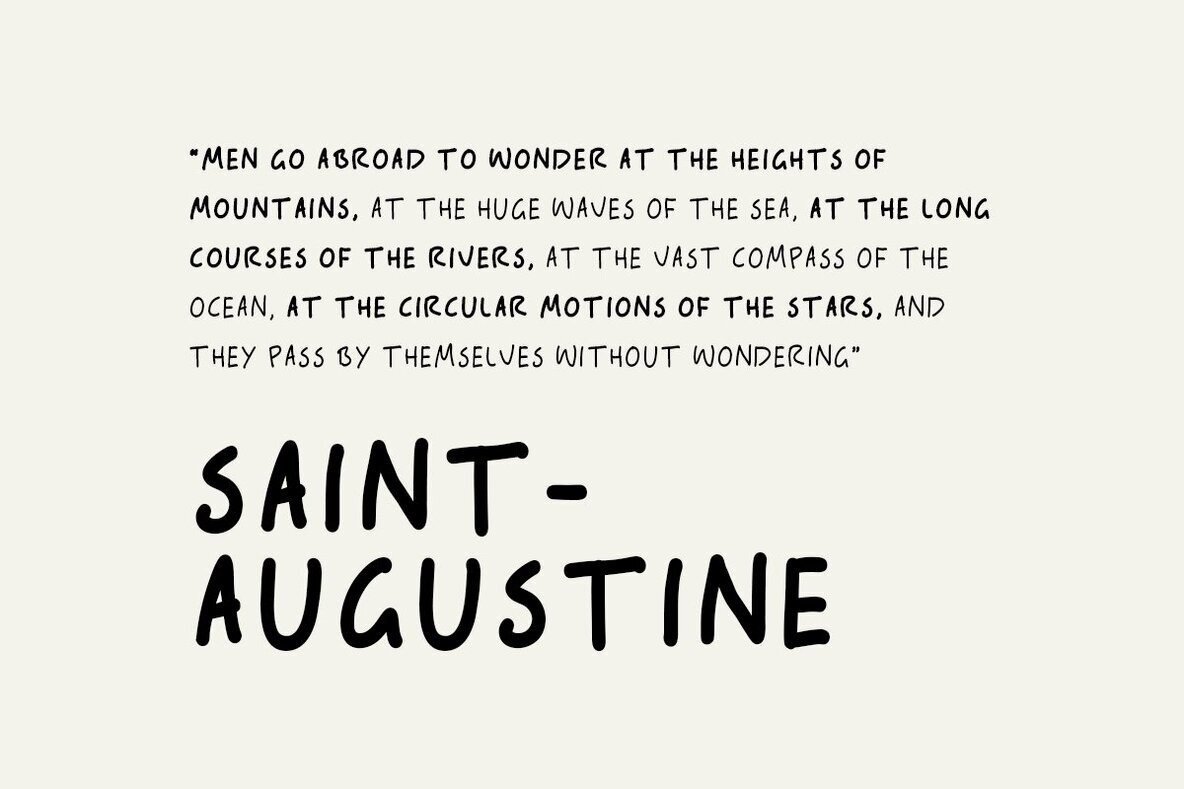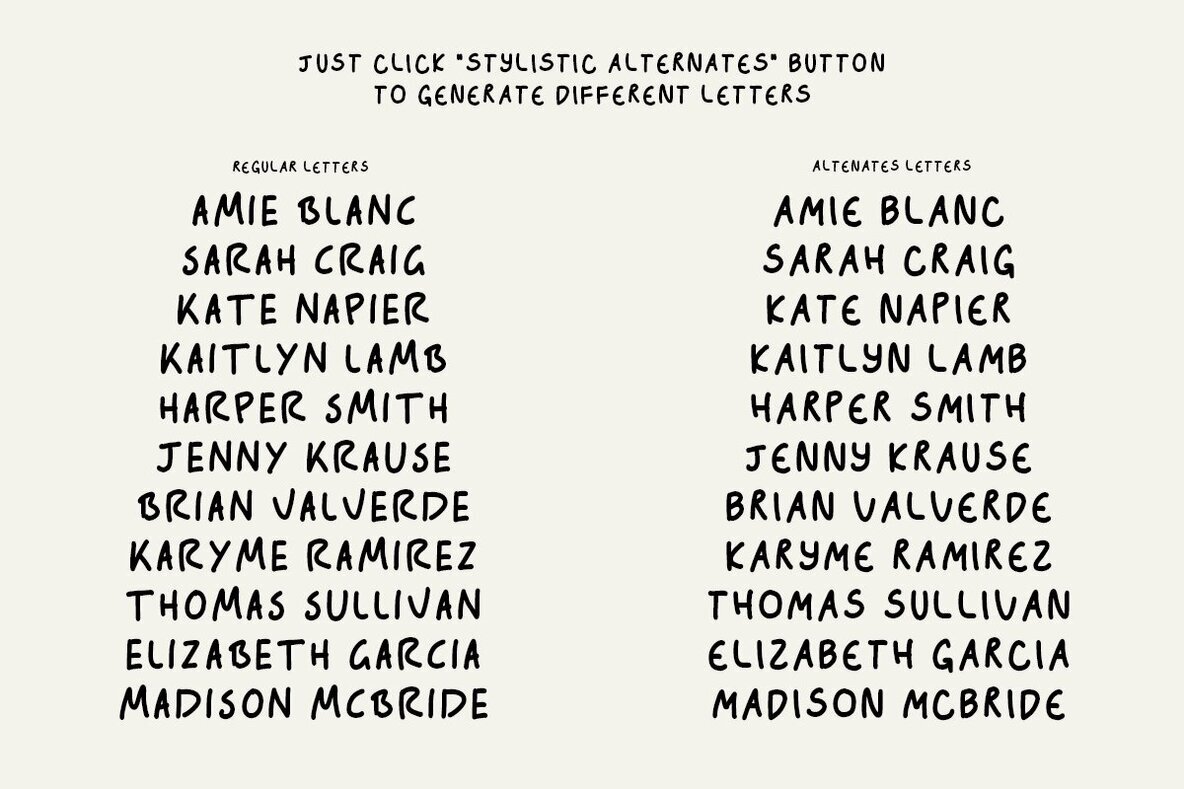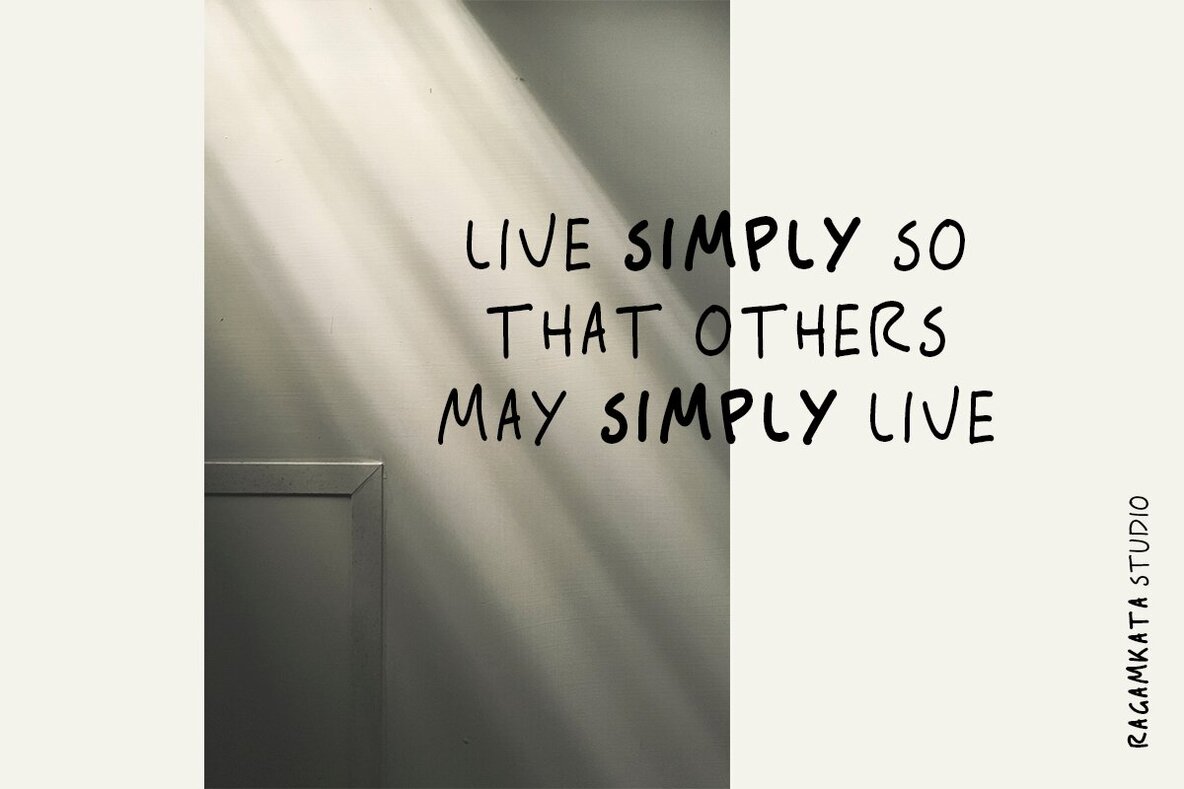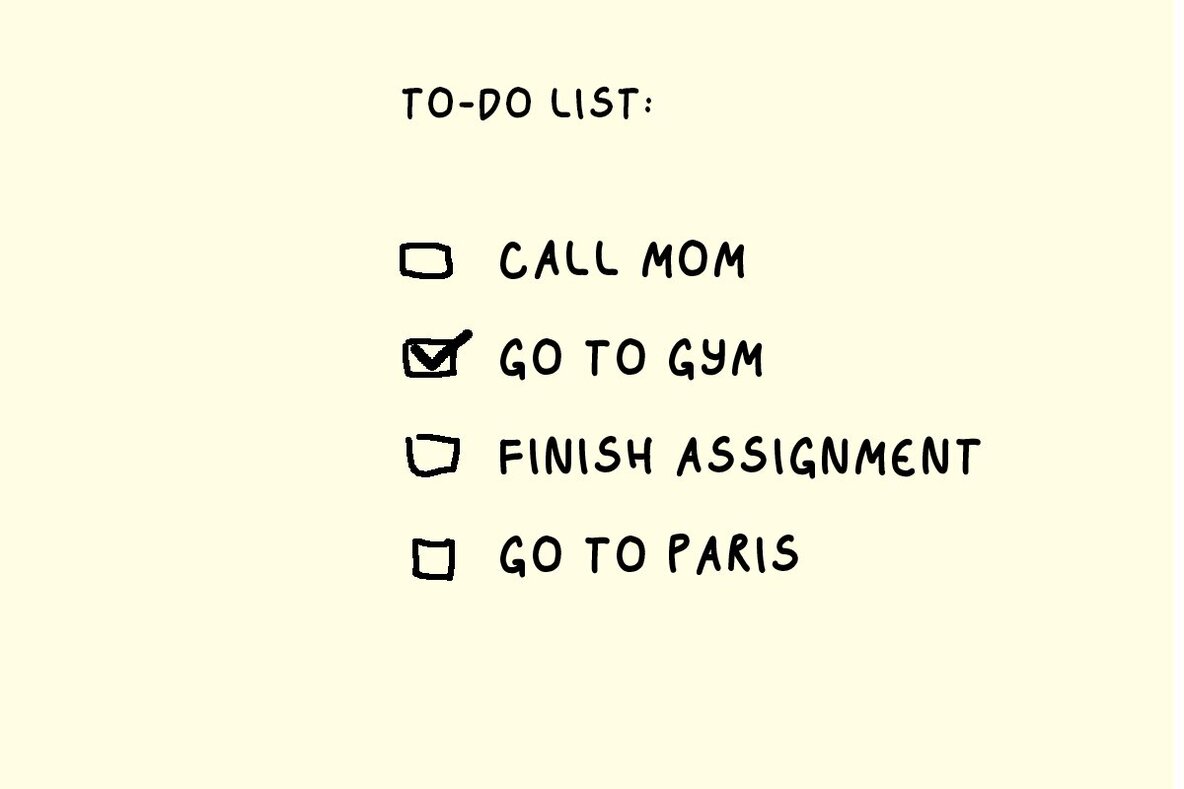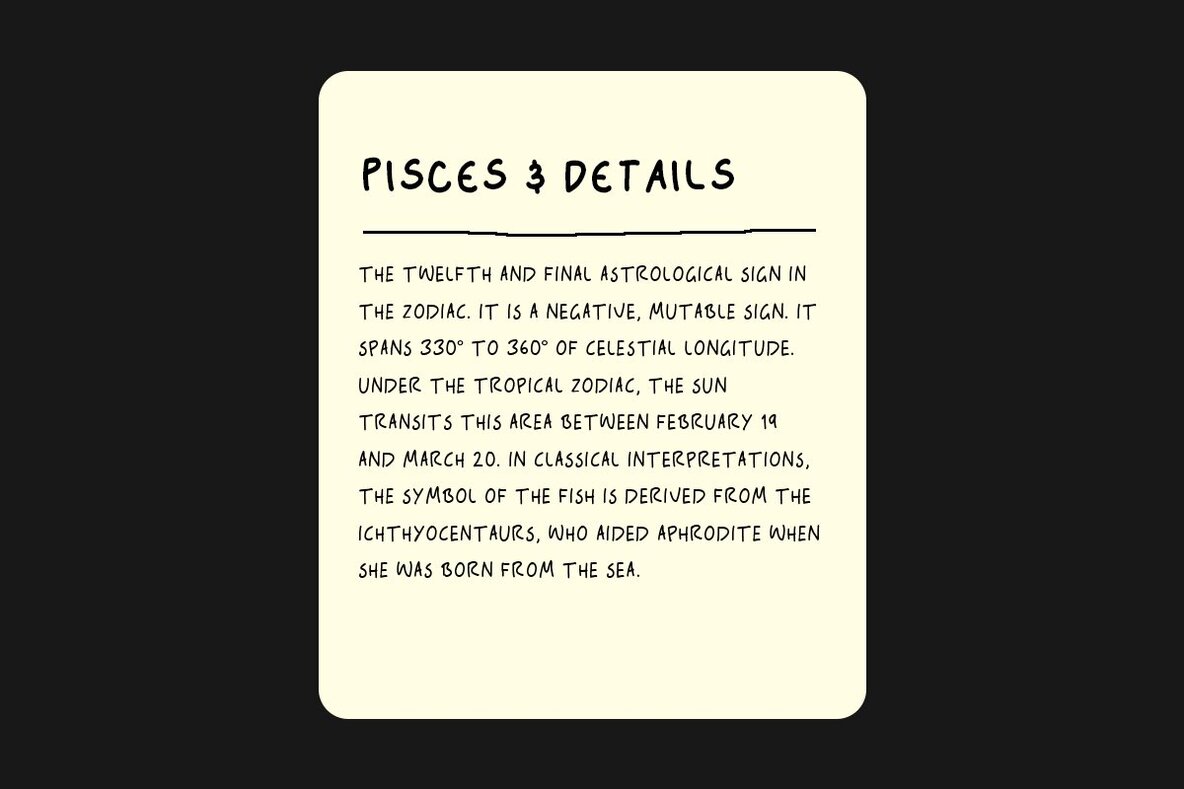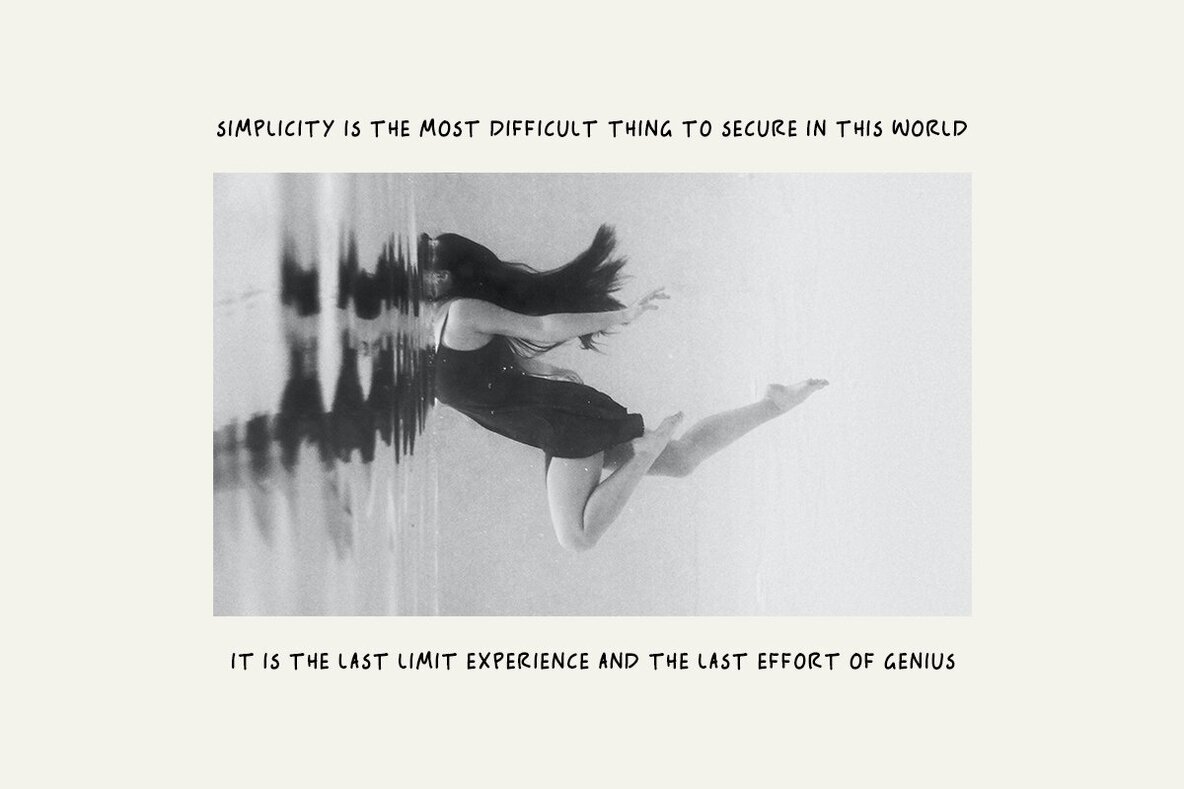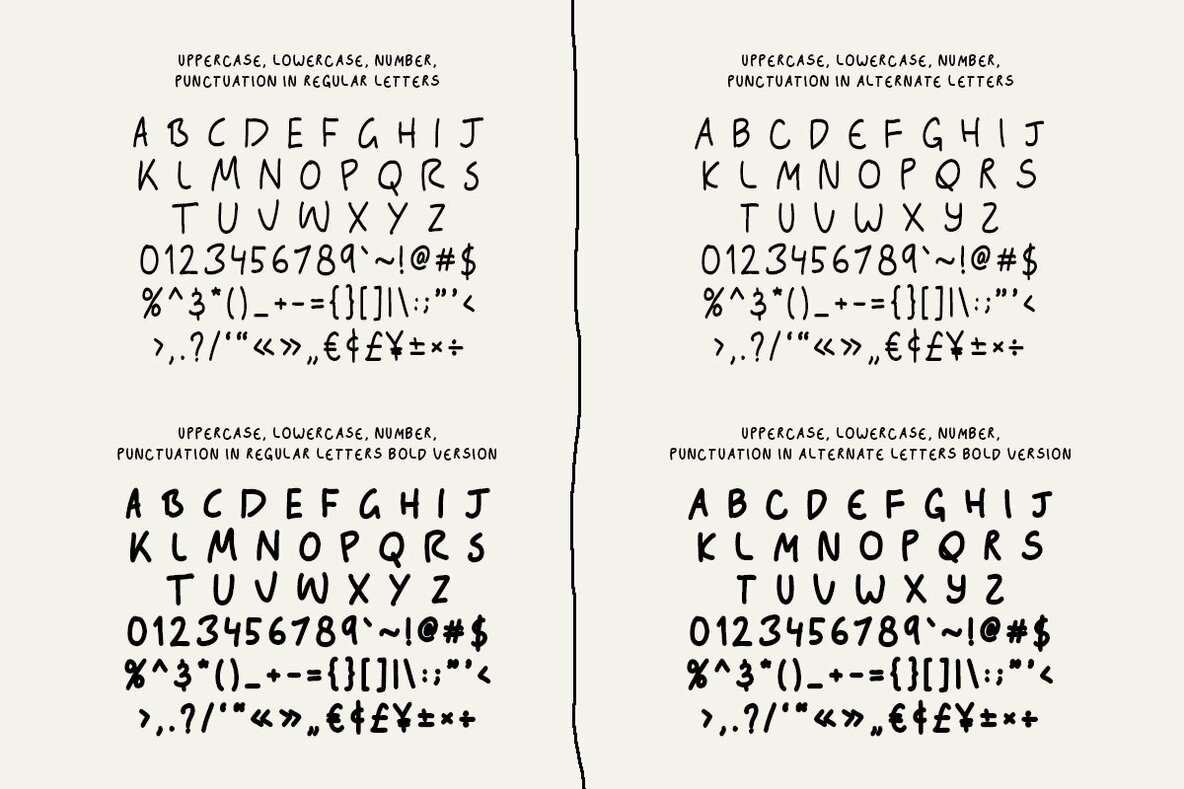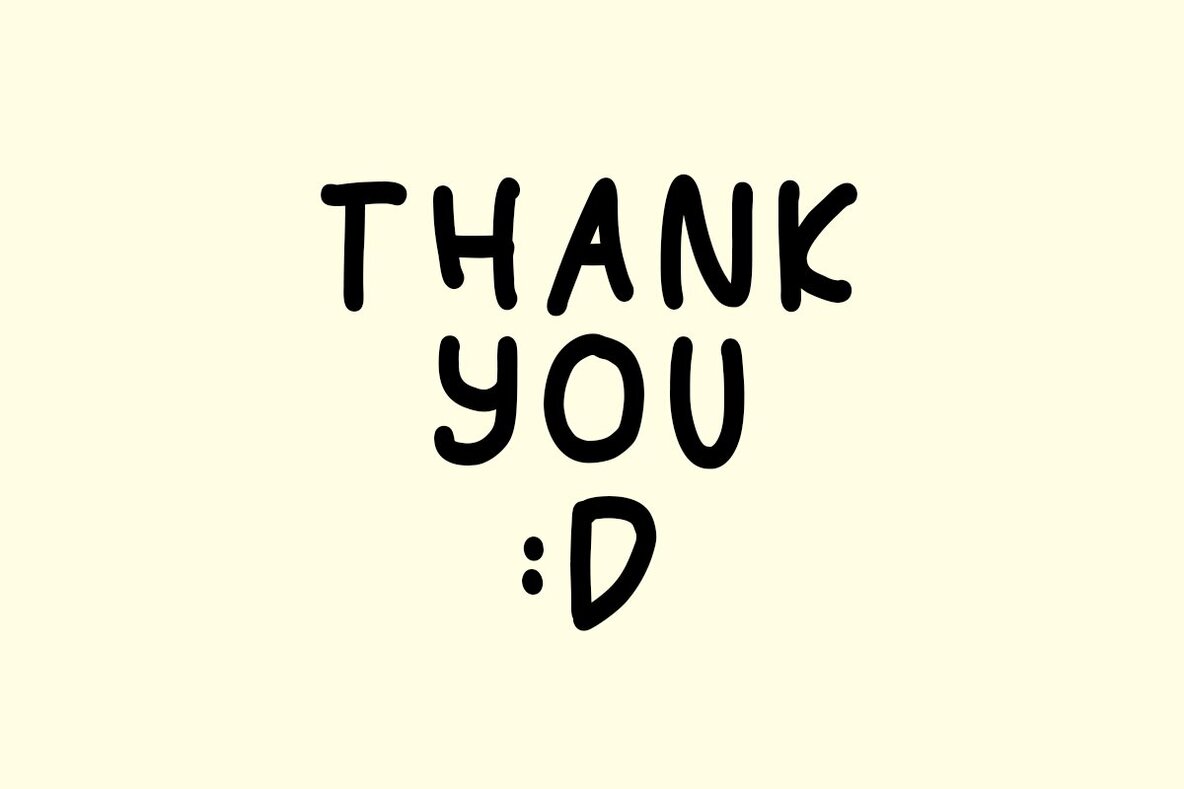
Glovy Font
Introducing Glovy, a unique handwriting font crafted directly from personal penmanship. Designed to embrace the imperfect charm of casual writing, Glovy shines in its own distinct style. With Glovy, enjoy a natural, all-caps handwriting style that makes a bold statement. This font captures the essence of handwritten notes with its unapologetically uneven alignment and playful charm.Glovy: Playful Handwriting Font with Character